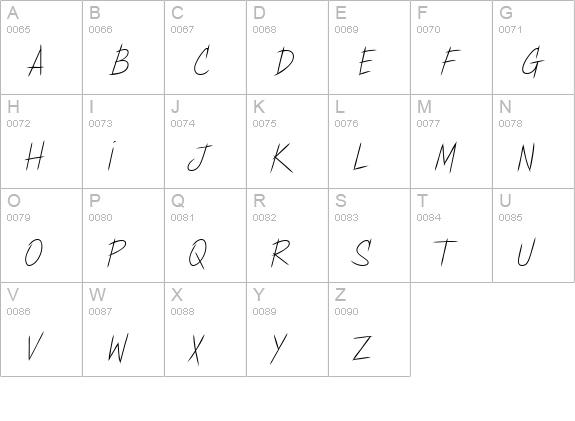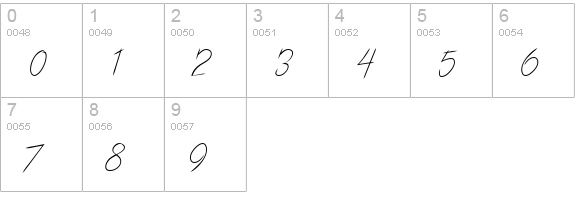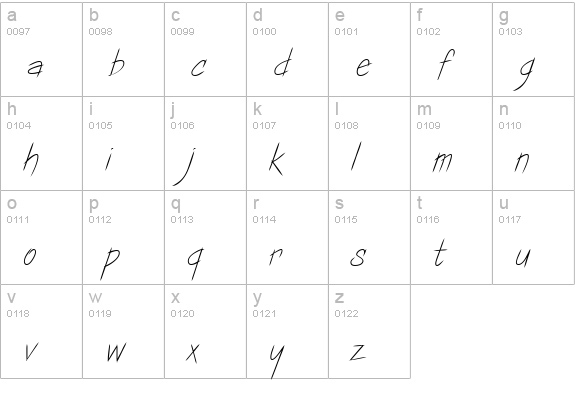
Copa Sharp BTN Font Details
Copa Sharp BTN is a modern and elegant font that exudes sophistication and style. Its sharp angles and clean lines give it a sleek and contemporary look, making it perfect for a wide range of design projects. Whether you're creating a logo, website, or printed materials, Copa Sharp BTN will add a touch of class to your work. The best part? Copa Sharp BTN is available for free download at FontsMarket.com, allowing you to access this high-quality font without breaking the bank. With its versatility and timeless appeal, Copa Sharp BTN is sure to become a staple in your font collection. Download it today and elevate your designs to the next level.